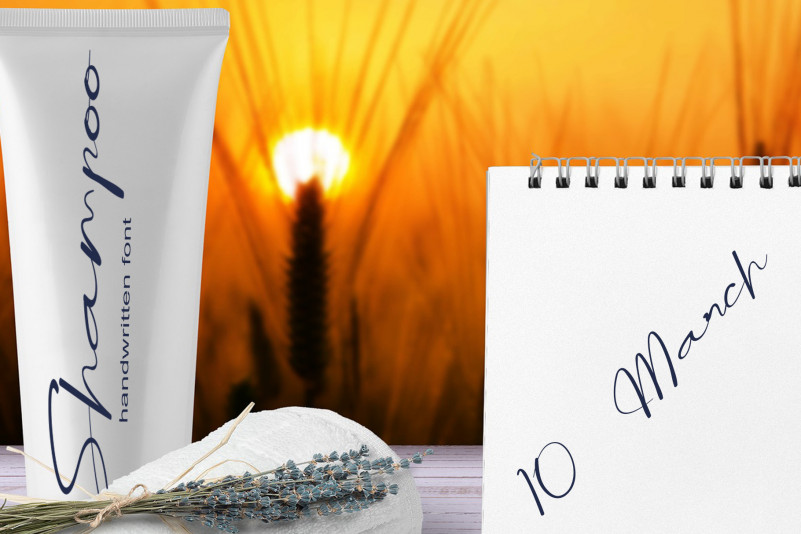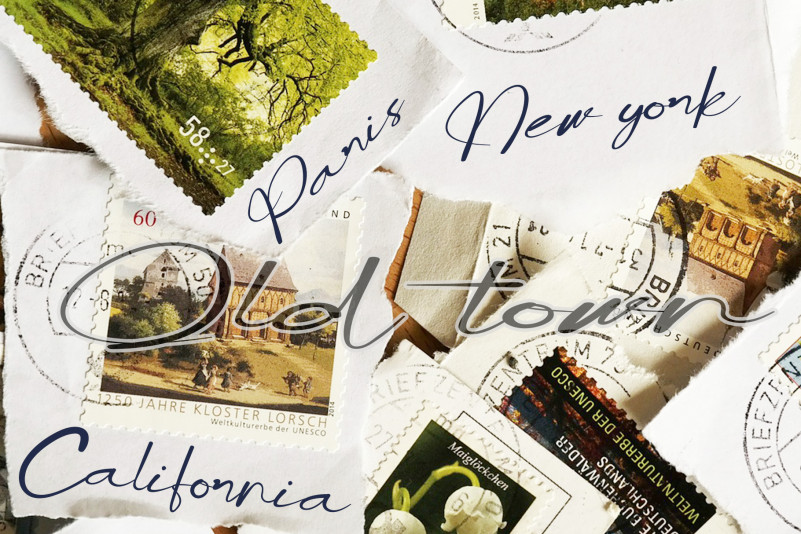
Genuine Handmade Font
Genuine Handmade Handwritten Font
It’s an elegant script font with a contemporary atmosphere and impeccable form, inspired by timeless classic calligraphy. Not too thin and not too thick, balanced and varied, this font was designed to enhance the beauty of your projects.